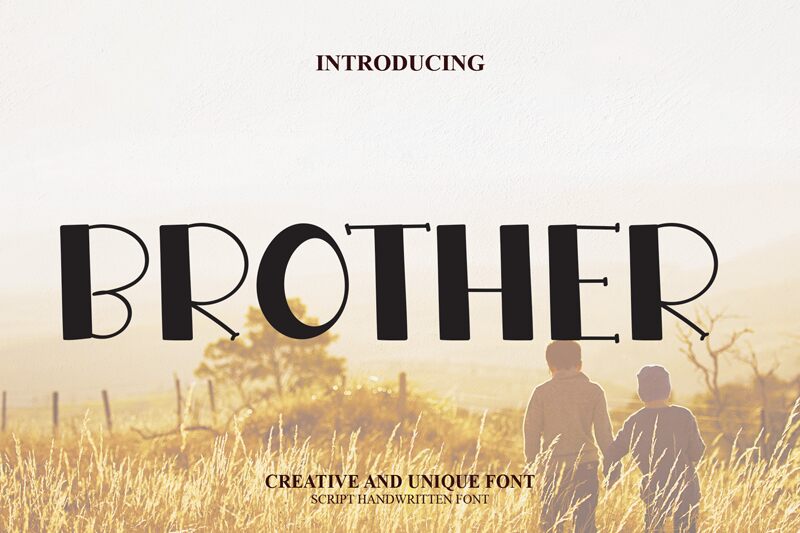
Brother
Brother is a bold and striking display font created by Belina Studio. Its clean lines and modern style make it perfect for a wide range of creative projects, from logos and branding to packaging design and advertising campaigns. The bold weight of the font adds impact and draws attention, making it ideal for headlines or titles that need to stand out. With its versatility, Brother is suitable for both digital and print mediums, making it the go-to choice for designers looking to add a touch of contemporary flair to their work. Whether you're creating a website or designing a poster, Brother is sure to make a bold statement.
the latest style letters are perfect for wall displays, wedding invitations, social media post logos, advertisements, product packaging, product designs, labels, photography, watermarks, invitations, stationery, and any project that requires taste handwriting.